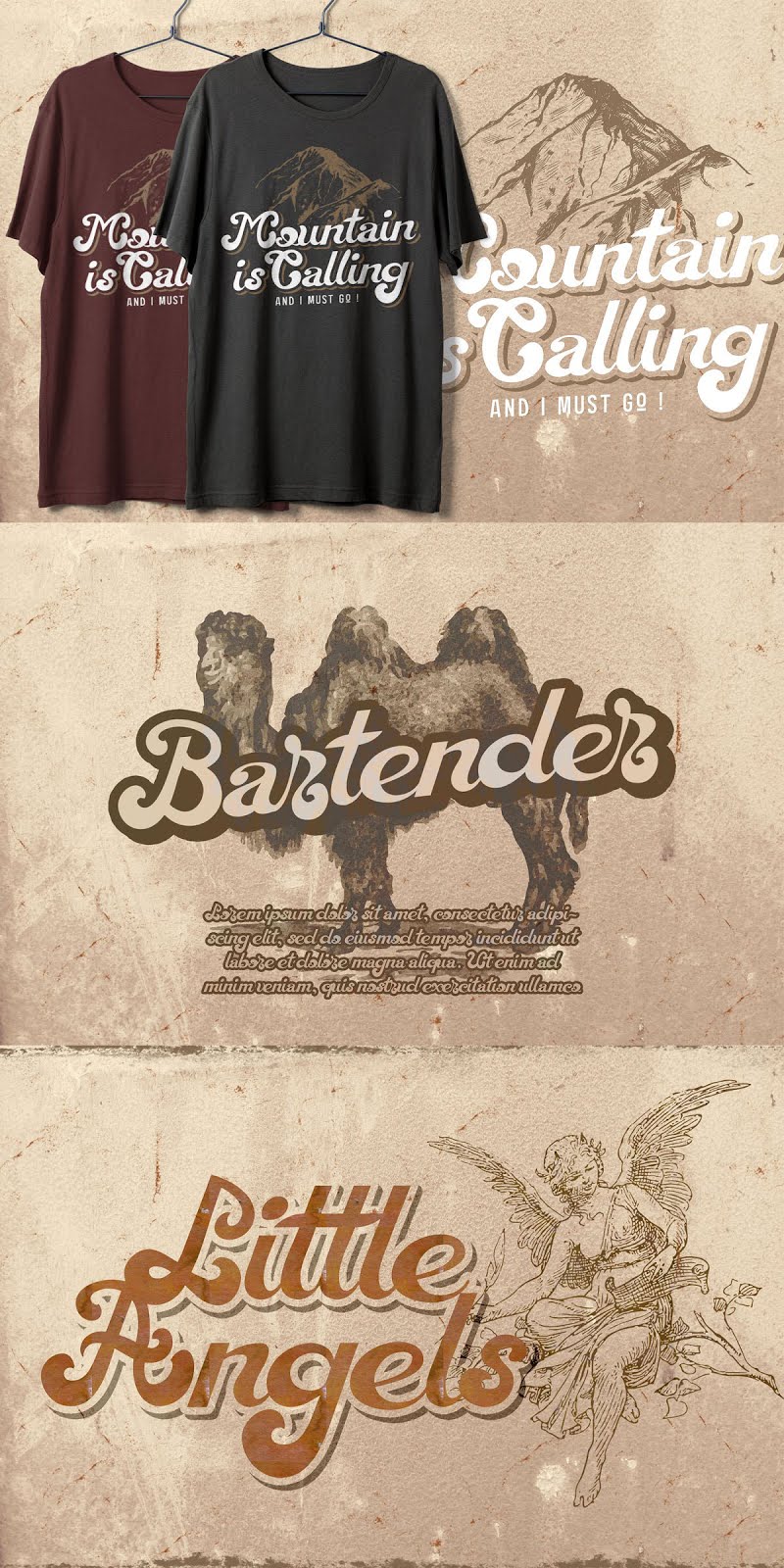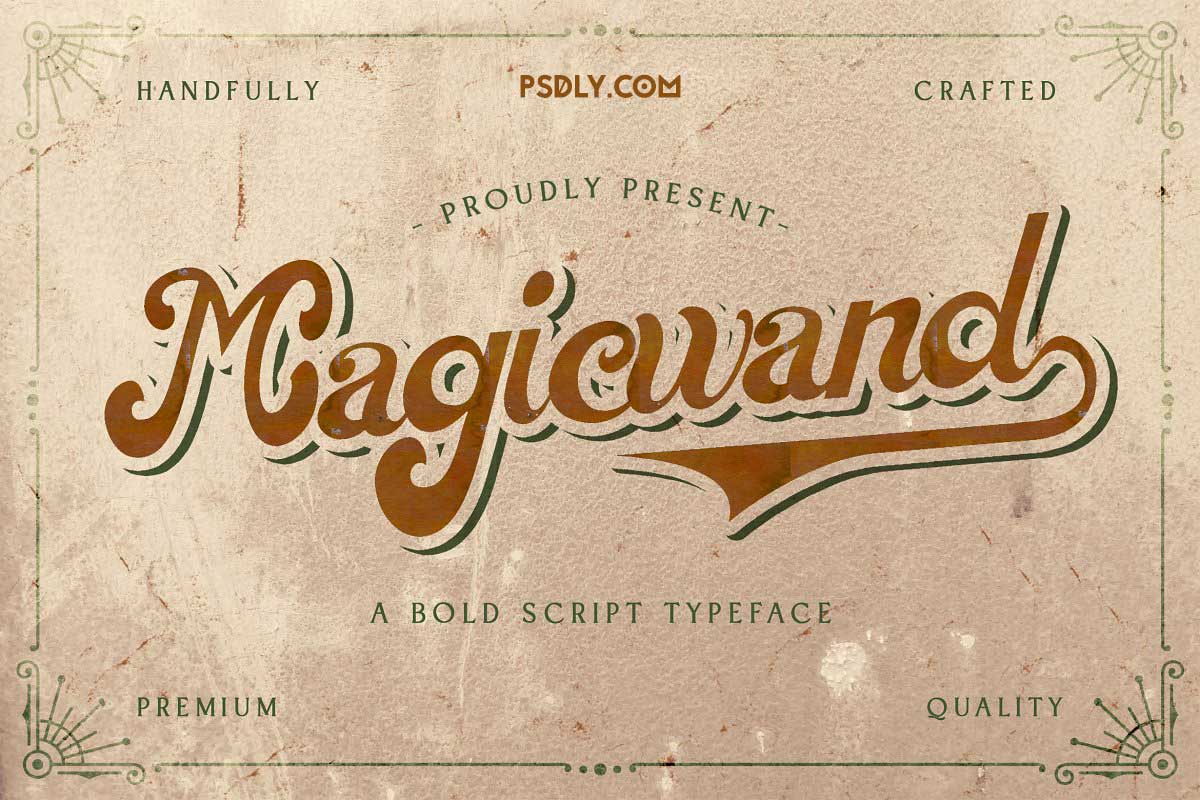
Magic Wand – Bold Script Font
Magic Wand - Bold Script Font
Introducing Creativemarket Magic Wand – Bold Script Font 5220033. Magic Wand is a bold script with a groovy retro style. This font has a unique feel and you can use it to add that special retro touch to any design idea you can think of!